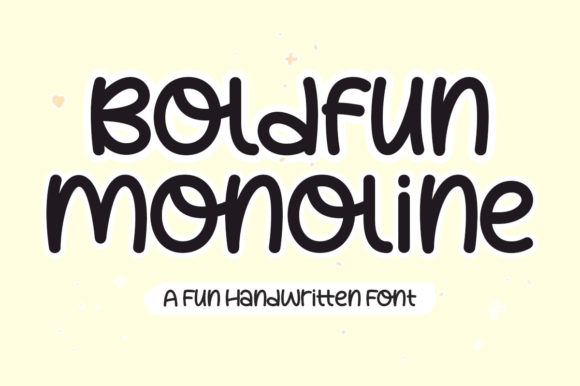
Step into a world of enchanting expression with Boldfun Monoline, a script font that captures the essence of creativity and joy. Dive into the depths of your imagination and let your ideas flow effortlessly onto the digital canvas. With its sweet and friendly handwritten style, Boldfun Monoline transforms your words into captivating works of art.
Unlike traditional fonts that confine you to rigid structures, Boldfun Monoline liberates your imagination, allowing it to soar to new heights. Its natural and unique style effortlessly complements a vast spectrum of designs, from whimsical invitations to heartfelt letters and eye-catching social media posts. The possibilities are endless, limited only by the boundaries of your mind.
With Boldfun Monoline, you'll embark on a journey of self-expression, crafting designs that resonate with your individuality. Its versatility enables you to weave a tapestry of emotions, from lighthearted playfulness to heartfelt sincerity. Let your words dance across the screen, imbued with a touch of your unique personality.
Experience the transformative power of Boldfun Monoline, where your creativity knows no bounds. Unleash your inner artist and let your imagination run wild. Embrace the freedom to express yourself authentically, leaving a lasting impression on all who encounter your designs.